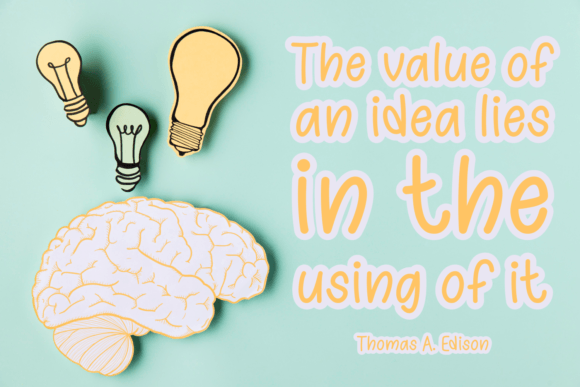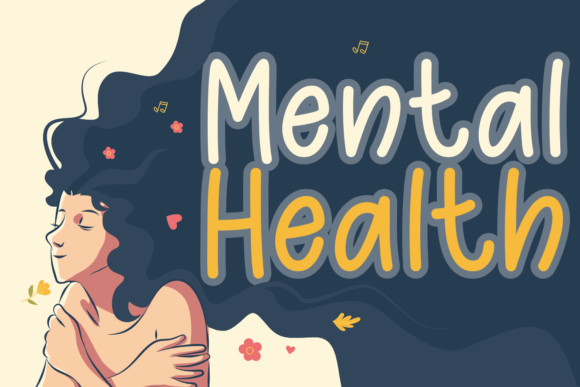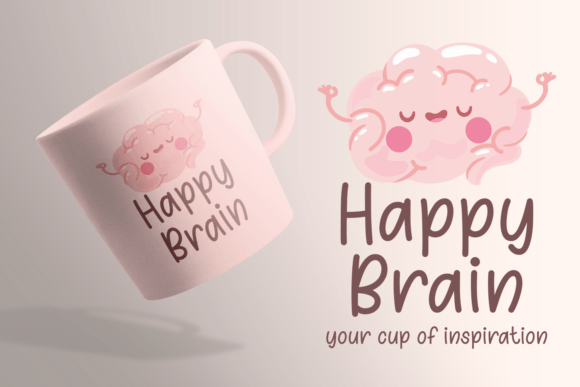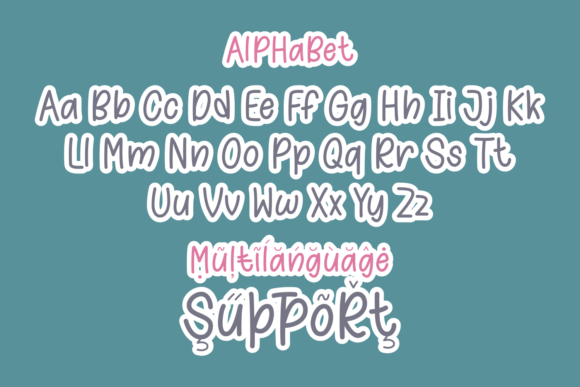
Happy Brain Font
Bring energy and fun to your creative projects with the Happy Brain font. This playful and lively handwritten script is designed to make any text come alive. Whether you’re creating inviting packaging, promotional designs, social media posts, party invitations, or more, this font is a fantastic choice.
The Happy Brain font features smooth, quirky strokes that add personality and charm. Its vibrant style is perfect for projects that need a touch of joy and creativity. The font balances playfulness with readability, making your designs both attractive and easy to understand.
This font works well across a wide range of applications. Use it for packaging that catches the eye, promotions that stand out, engaging social media graphics, and invitations that set the tone for any celebration. The Happy Brain font helps you create memorable designs that connect with your audience.
Despite its playful character, the Happy Brain font maintains excellent clarity at various sizes. Whether used for bold headlines or decorative accents, it adds fun and warmth to your projects.
Using this font will give your work a unique and joyful personality. If you want your creative ideas to feel lively and inviting, the Happy Brainfont is an excellent option.
In summary, the Happy Brainfont is perfect for a wide variety of creative uses. From packaging and social media to party invitations and promotions, it brings energy and charm. Download it today and infuse your designs with playful creativity.